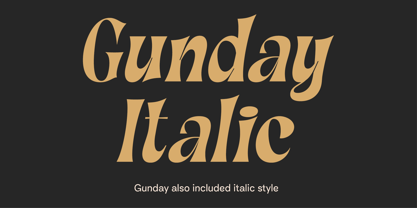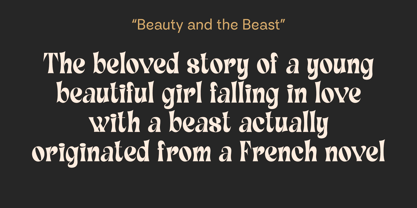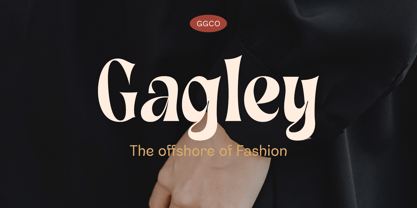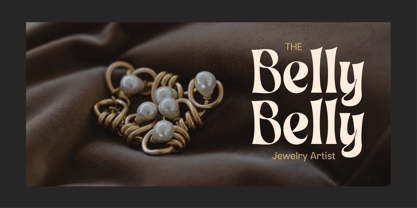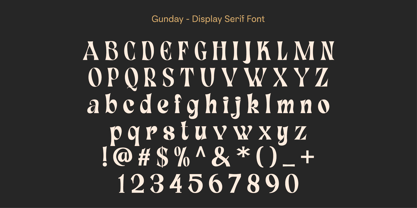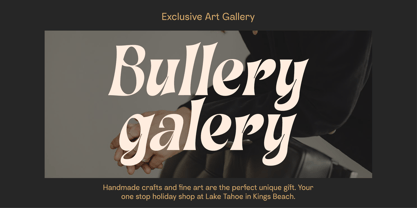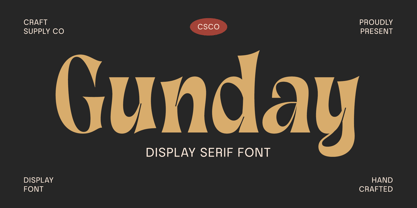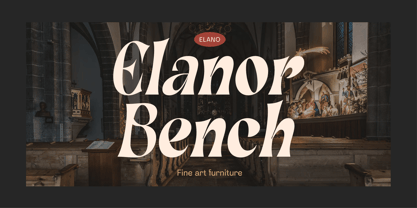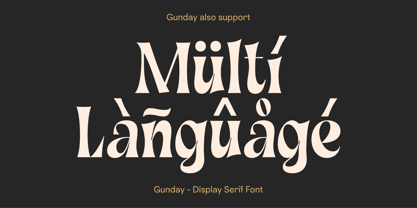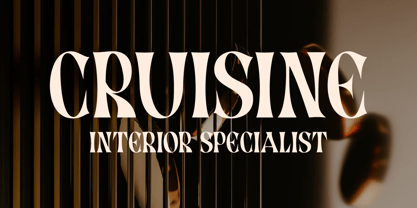
Gunday
by Craft Supply Co
The Gunday Font Family was designed by Trio Nazzar Saputra, Wahyu Hadi Yuana and published by Craft Supply Co. Gunday contains 2 styles and family package options. More about this family
Gunday is a bold and striking display serif font that is perfect for making a statement in your designs. With its strong and angular letterforms, Gunday is sure to grab attention and give your project a unique and memorable look.
Whether you’re designing a poster, a logo, or a website, Gunday is a versatile font that can be used in a variety of contexts. Its thick serifs and bold structure make it ideal for headlines and other large text, while its intricate details and smooth curves give it a refined and sophisticated feel.
Incorporating Gunday into your design work is sure to make a statement and set your project apart from the rest. So if you want to add a touch of character and personality to your designs, give Gunday a try today!
Designers: Trio Nazzar Saputra, Wahyu Hadi Yuana
Foundry: Craft Supply Co